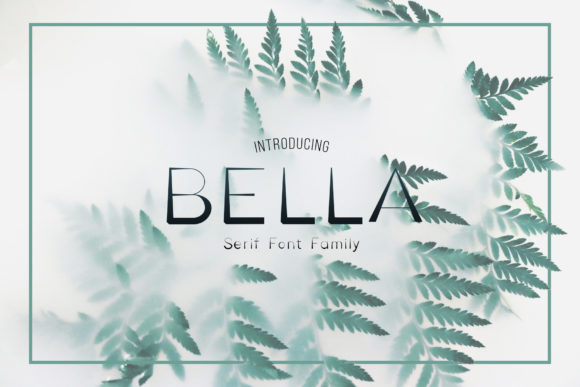
Bella Family Font
Introducing the Bella Family Font: A Journey Through Elegance and Sophistication
Dive into the world of Bella, a captivating serif font family that injects a sense of timeless beauty into every design project. With its bold and playful strokes, Bella dances across the page, leaving a trail of elegance and sophistication in its wake.
Experience the Harmony of Past and Present
Bella is a masterfully crafted font that seamlessly blends the charm of classic serif fonts with a modern, contemporary twist. Its graceful curves and sweeping strokes evoke a sense of nostalgia, while its sharp edges and clean lines add a touch of modernity.
A Versatile Performer for Diverse Designs
Whether you're crafting elegant wedding invitations, creating stunning logos, or designing eye-catching social media graphics, Bella is your trusted companion. Its versatility knows no bounds, making it the perfect choice for a wide range of design projects.
Capture Attention with Unforgettable Headlines
With Bella, your headlines will command attention and leave a lasting impression. Its bold and confident strokes ensure that your words stand out, making them impossible to ignore. Imagine your website headlines, social media posts, and marketing materials radiating with Bella's charm.
Craft Timeless and Enduring Designs
Bella is more than just a font; it's an investment in timeless design. Its classic serif style ensures that your designs will remain relevant and captivating for years to come. Whether you're working on a personal project or a client's vision, Bella is your secret weapon for creating designs that stand the test of time.